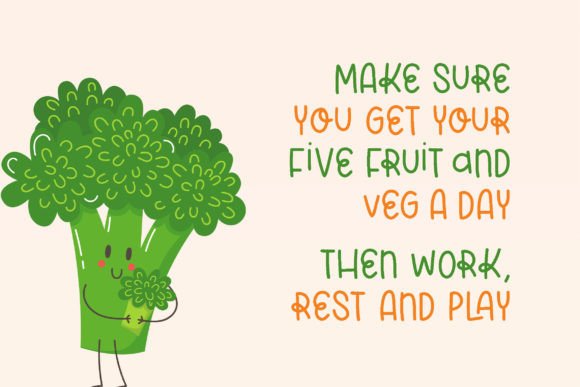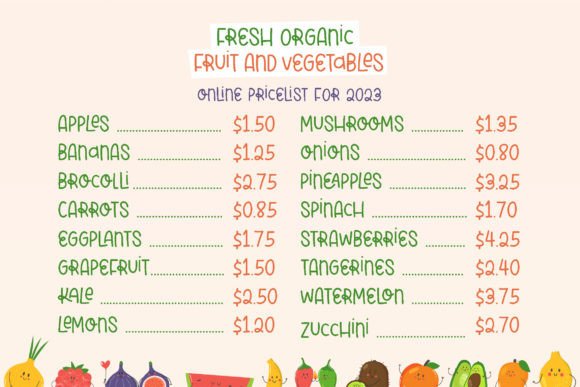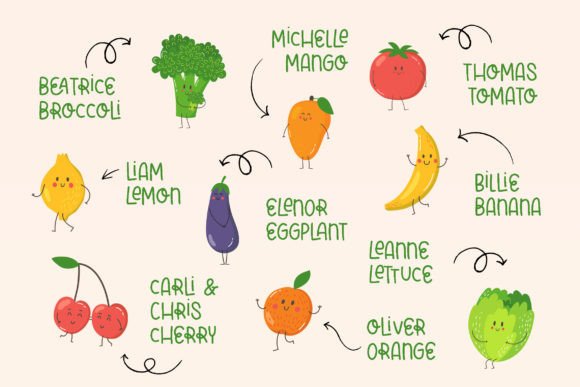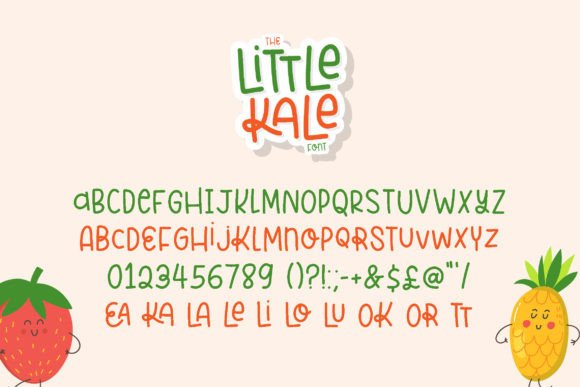
Discover the Perfect Touch of Whimsy in Your Designs
Who among us hasn’t experienced that moment when a font just clicks, and you know it’s the one that will bring your design to life? For me, it was a sleepless night spent brainstorming ideas for a new project, and suddenly, the perfect font popped into my head – A Little Kale Font. Its playful, handwritten charm instantly captured the essence of what I was trying to convey.
A Little Kale Font is more than just a pretty face; it’s a versatile tool designed to add a dash of personality to your designs. Whether you’re working on a children’s book, a social media campaign, or a logo for a quirky brand, this font is sure to brighten up each of your projects. Its unique character makes it an invaluable asset for designers looking to add a touch of whimsy and fun to their work.
A Little Kale Font Key Features
- Font Family: A Little Kale Font is a unique, hand-drawn font family designed to add a touch of whimsy and elegance to any design.
- Character Set: Includes a comprehensive set of characters, including Latin, Cyrillic, and Greek alphabets, as well as punctuation marks and symbols.
- Unique Characteristics: Features a distinctive, hand-drawn aesthetic with subtle irregularities and flourishes, adding a touch of personality to any design.
A Little Kale Font Review
First off, I have to say that I’m really loving the playful vibe of A Little Kale Font. The whimsical feel is perfect for anything from children’s books to food labels. ✨ The font is incredibly versatile and can be used in a wide range of projects, from digital to print. ✨ The font designer has done a great job of capturing the carefree spirit of the name.
The font is available in a variety of weights, from light to bold, which gives users a lot of flexibility when it comes to choosing the right feel for their project. ✨ The font also comes with a lot of glyphs, including ligatures and swashes, which adds to its charm. ✨
What Doesn’t Quite Work
- ⚠️ At larger sizes, the font can start to look a bit pixelated. This is especially noticeable on digital screens.
- ⚠️ The font could benefit from more font pairing suggestions, as some users may find it tricky to pair with other fonts.
Overall, I’m really impressed with A Little Kale Font and would definitely recommend it to designers looking for a fun and quirky font. While it’s not perfect, the font’s unique character and versatility make it a great addition to any design project.
Getting the Most Out of A Little Kale Font
Here are some tips to get the most out of A Little Kale Font:
- Use the font in conjunction with other whimsical fonts for a playful look.
- Use the font in headings and titles to create a cohesive look.
A Little Kale Font is perfect for:
- Children’s book illustrations.
- Wed